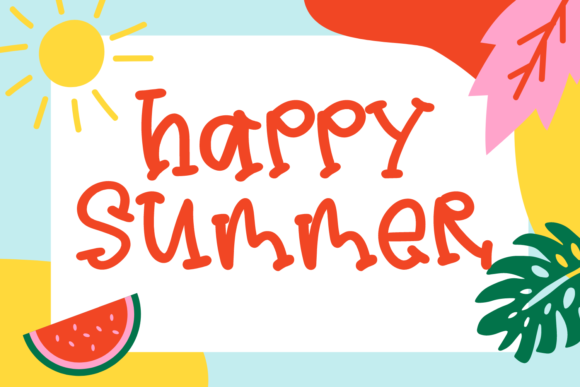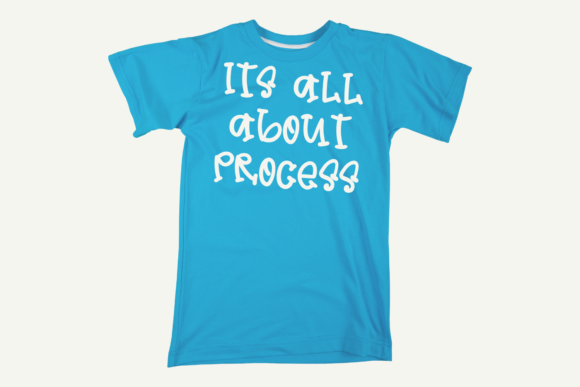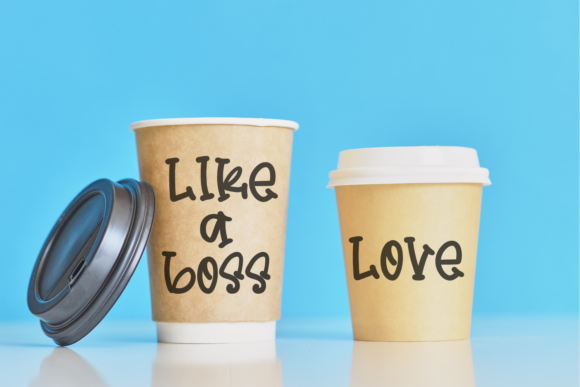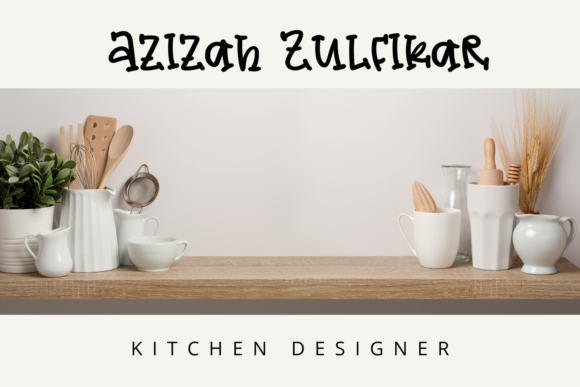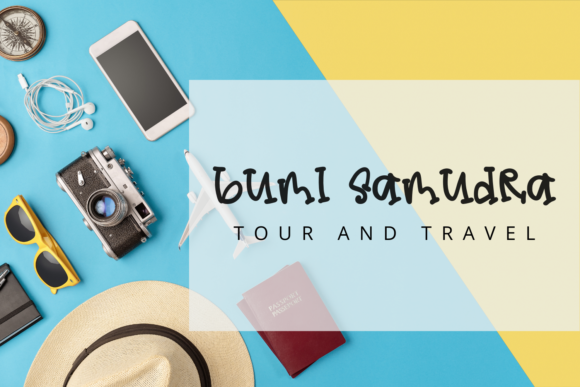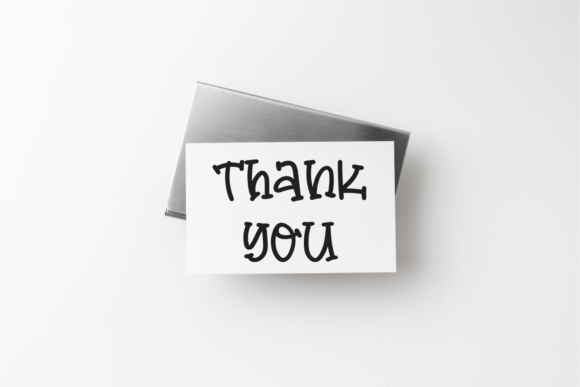
Introducing Banana Bread Font: The Perfect Addition to Your Crafty Projects
Are you a designer, crafter, or DIY enthusiast looking for a unique and playful font to add a personal touch to your projects? Look no further than Banana Bread Font, a fun and quirky display font that’s sure to bring a smile to your face. In this article, we’ll dive into the world of Banana Bread Font, exploring its features, uses, and benefits, as well as provide tips and inspiration for incorporating it into your crafty ideas.
A Font that’s as Sweet as it is Versatile
Banana Bread Font is a one-of-a-kind display font that’s perfect for adding a touch of whimsy to your designs. Its original look is sure to appeal to a wide range of crafty ideas, from letterheads and titles to stationery and more. Whether you’re creating handmade cards, crafting unique signage, or designing eye-catching packaging, Banana Bread Font is the perfect choice.
Key Features of Banana Bread Font
- Unique and Quirky Design: Banana Bread Font boasts a playful, hand-drawn design that’s sure to stand out from the crowd.
- Display Font: Perfect for headlines, titles, and other display text, Banana Bread Font is designed to make a statement.
- Crafty and DIY Friendly: This font is ideal for crafty projects, such as handmade cards, stationery, and other paper crafts.
- Easy to Read: Despite its playful design, Banana Bread Font is easy to read, making it perfect for both digital and print applications.
Uses for Banana Bread Font
Banana Bread Font is incredibly versatile, making it suitable for a wide range of projects and applications. Here are just a few ideas to get you started:
- Handmade Cards and Stationery: Add a personal touch to your handmade cards and stationery with Banana Bread Font.
- Crafting and DIY Projects: Use Banana Bread Font to add a touch of personality to your crafting and DIY projects, such as signs, labels, and packaging.
- Digital Designs: Banana Bread Font is perfect for digital designs, such as social media graphics, blog headers, and website titles.
- Branding and Packaging: Use Banana Bread Font to create eye-catching branding and packaging that stands out from the crowd.
Tips for Using Banana Bread Font
To get the most out of Banana Bread Font, here are a few tips to keep in mind:
- Use it Sparingly: Banana Bread Font is a display font, so use it sparingly to make a big impact.
- Pair it with Other Fonts: Experiment with pairing Banana Bread Font with other fonts to create a unique and eye-catching combination.
Banana Bread Font is a fun and quirky display font that’s perfect for designers, crafters, and DIY enthusiasts looking to add a personal touch to their projects. With its unique design, versatility, and ease of use, Banana Bread Font is sure to become a favorite in your font collection. So why not give it a try and see how it can elevate your crafty ideas to the next level?